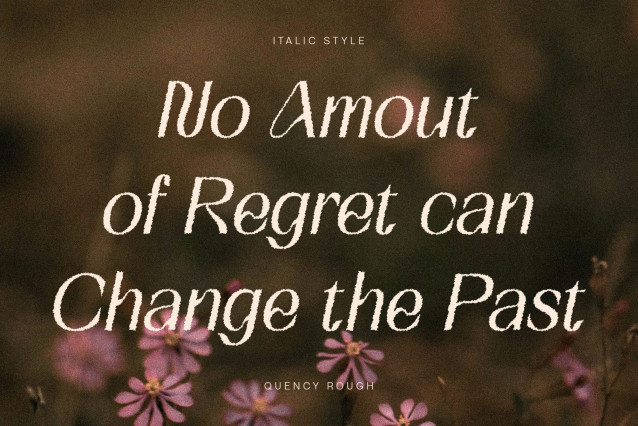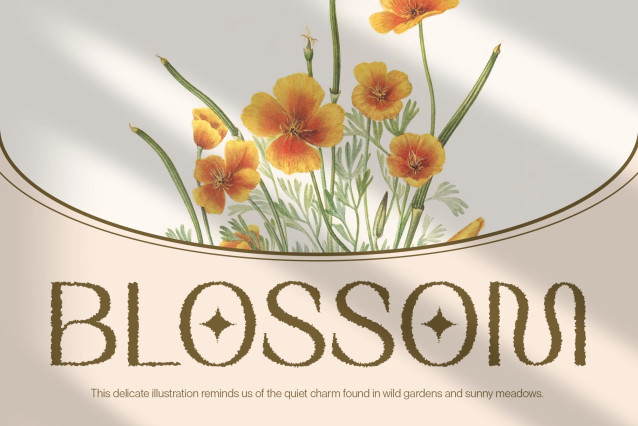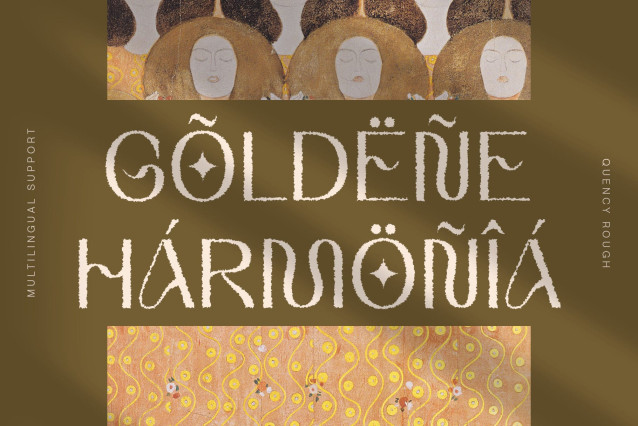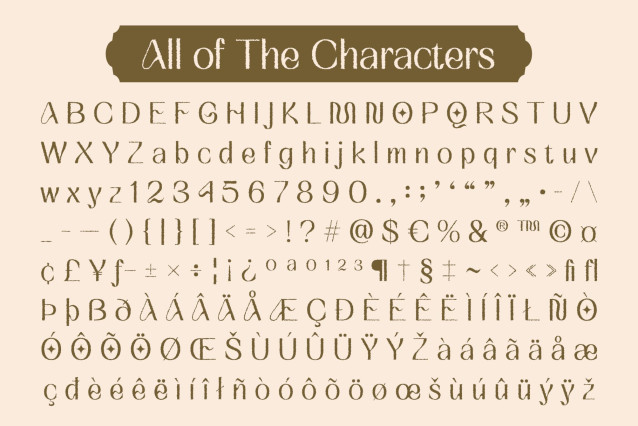
Quency Rough Font
Quency Rough Font is a modern sans serif font that beautifully merges the flowing, graceful curves characteristic of Art Nouveau with the simplicity and clarity of contemporary minimalism. This fusion creates a font that feels both timeless and fresh, perfectly balancing ornate elegance with modern restraint.